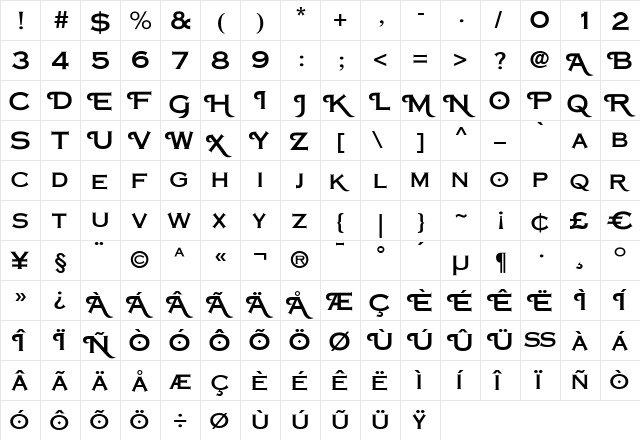
Copperplate Classic Plain Swash Regular
Design Context for Copperplate Classic Plain Swash Typeface
Copperplate Classic Plain Swash wears its vintage influences proudly, with letterforms that recall mid-century signage, classic packaging, and nostalgia-driven design.
Perfect for vintage-inspired branding, retro packaging, nostalgia campaigns, and period-accurate editorial design.
Font Pairing: Combine Copperplate Classic Plain Swash with a simple slab or neutral sans — period-accurate companions reinforce the vintage feel without competing for attention.
Pro Tip: Use Copperplate Classic Plain Swash for headlines and pull quotes rather than body copy — its personality is best appreciated in short, focused bursts.